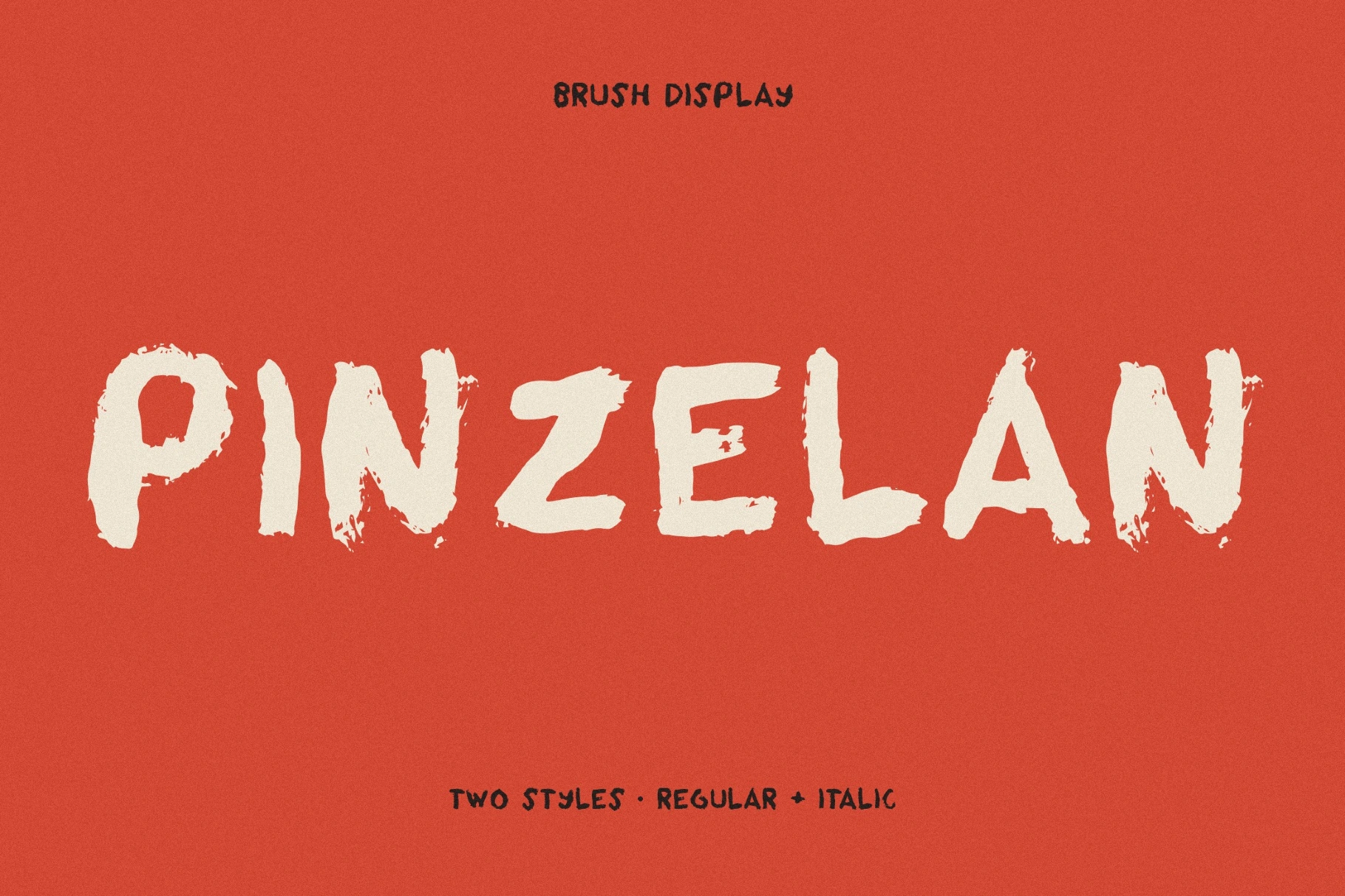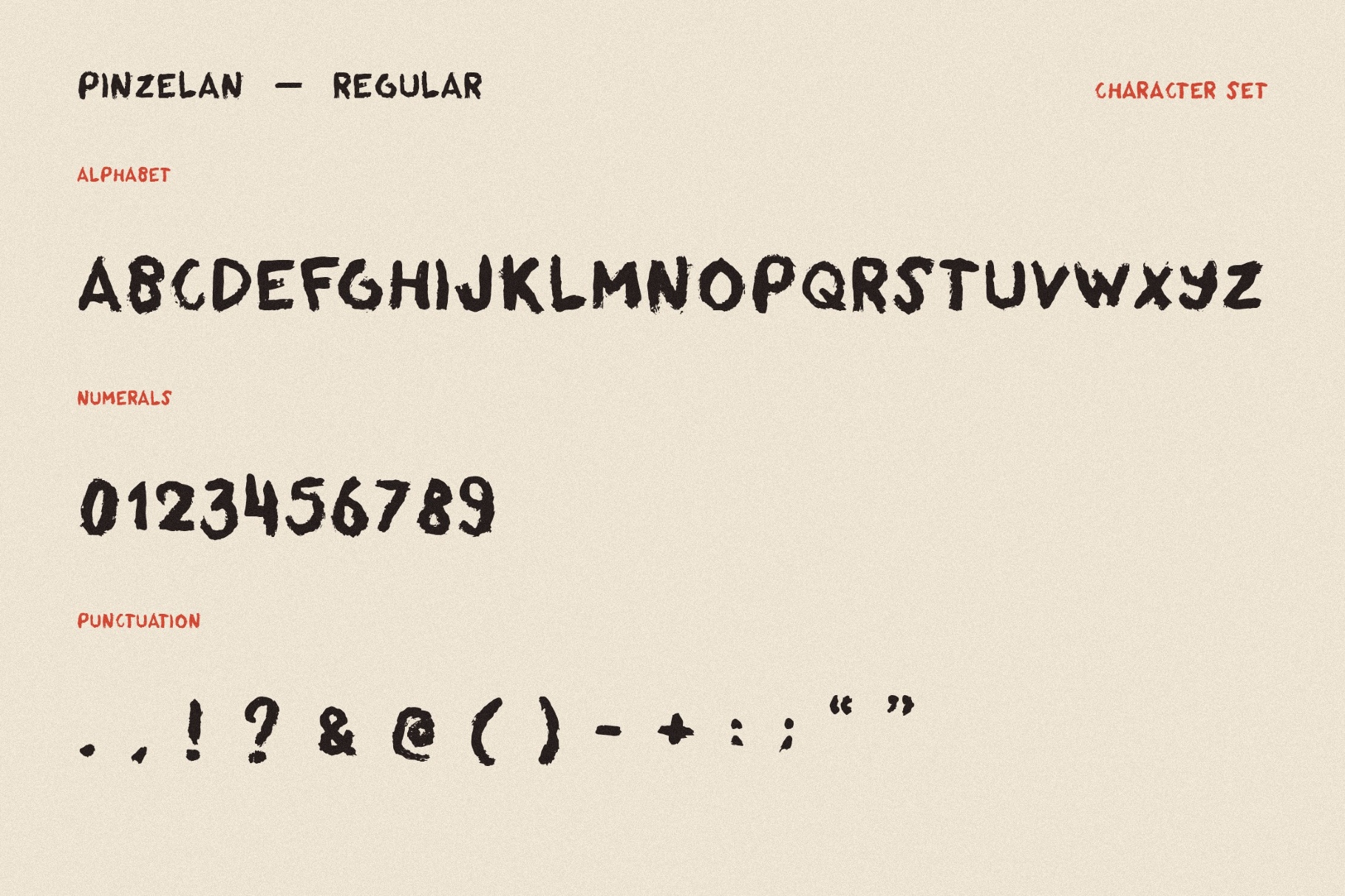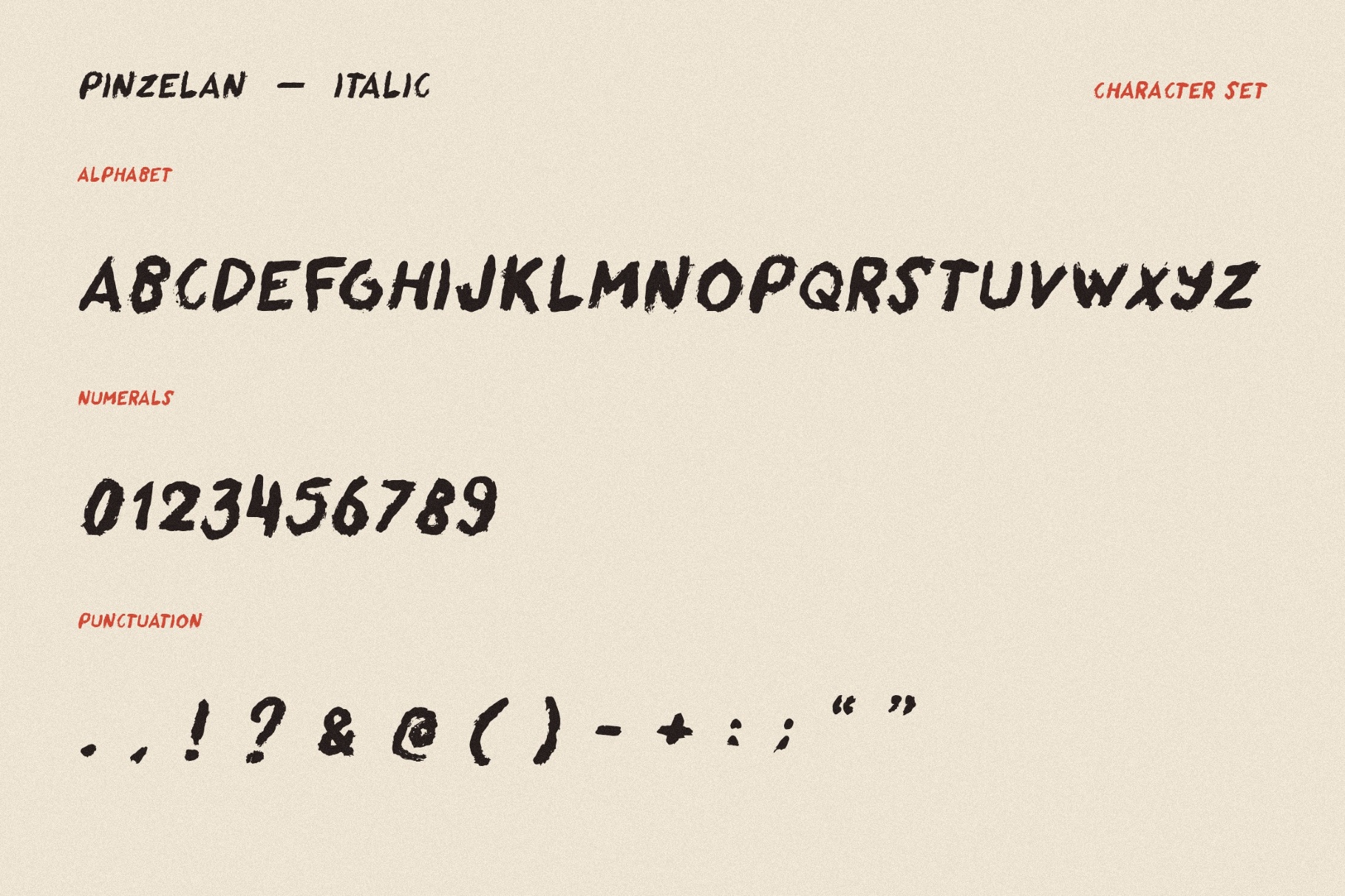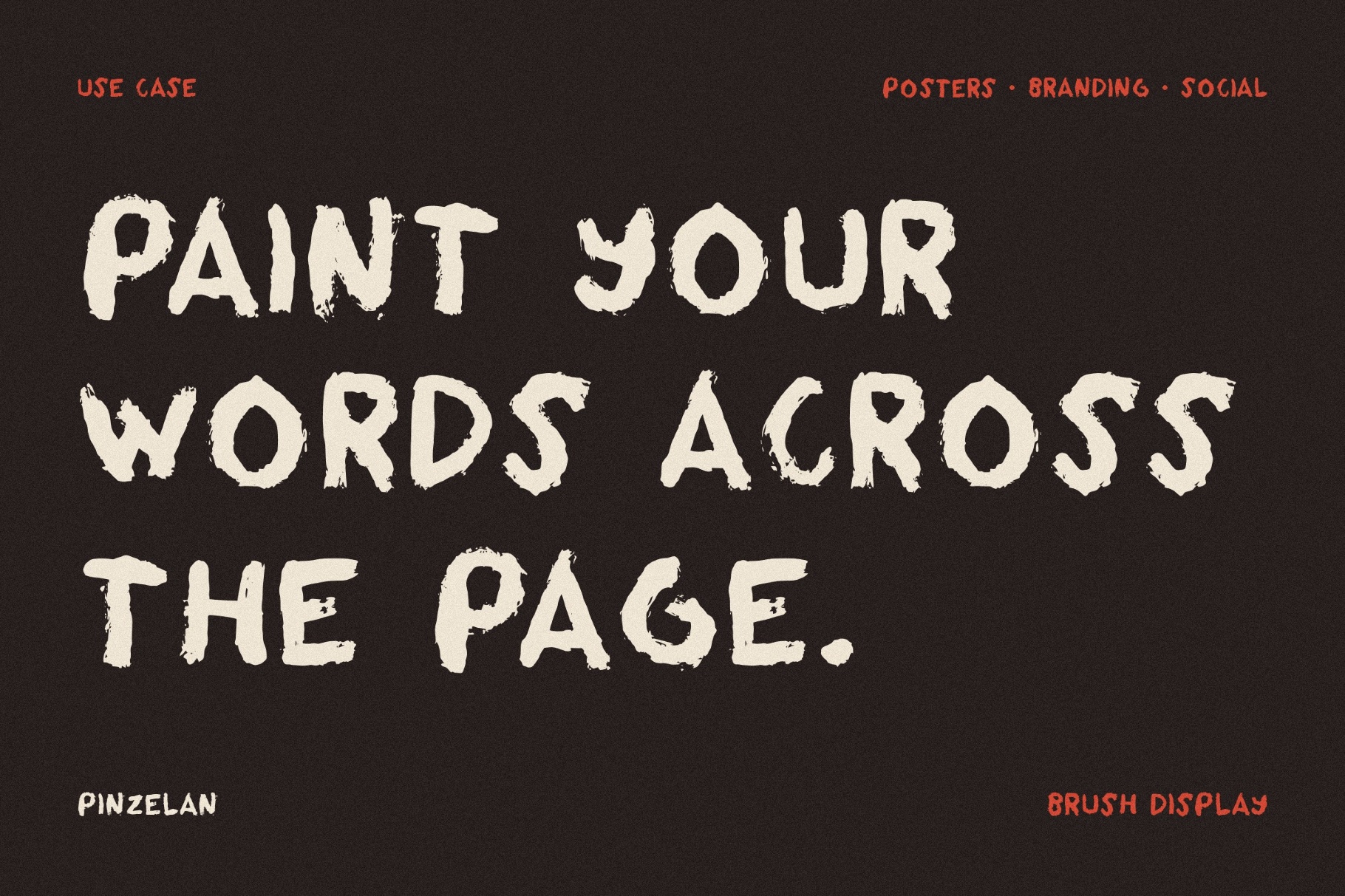
Pinzelan - Grunge Brush Font
An all-caps Pinzelan has dry brush edges, uneven ink, and a hand-cut rhythm. This sturdy grunge font evokes Nordic poster design, old classroom charts, folk art prints, and mid-century children’s books drawn with care. Its handmade texture fits multilingual headlines, educational materials, folk-inspired packaging, craft labels, editorial pull quotes, poster systems, and brand identities.
- two styles: Regular and Italic;
- uppercase letters;
- numbers, punctuation, and symbols;